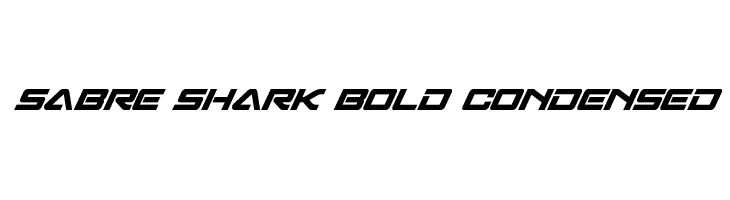
A dynamic and expressive handwritten font with fluid, spontaneous strokes.
A bold, skewed font with a futuristic and dynamic design.
Elegant cursive script with a handwritten style.
A bold, condensed, and angular font with a futuristic style.
A playful, curly font with whimsical loops and swirls.
A modern, geometric font with a futuristic and sleek design.
A bold, geometric font with square cutouts, offering a digital and futuristic look.
A chaotic, hand-drawn font with irregular, jagged strokes and a graffiti-like style.
An elegant, flowing script font with ornate uppercase and cohesive lowercase characters.
设计师偏爱 AEZ Jon's Handwriting, Capricus Skewed, Bernadette Signature, Sabre Shark Bold Condensed and KG Lollipop,因为其造型干净、适用范围广—— 从品牌识别到落地页、海报都能胜任。